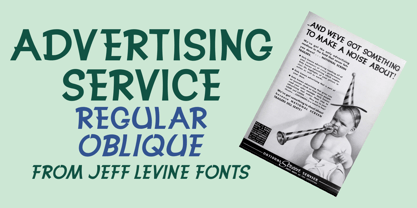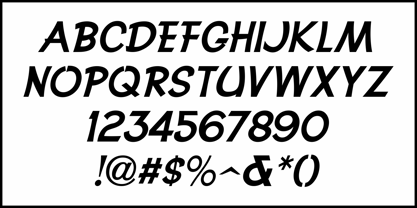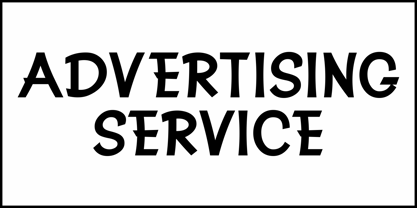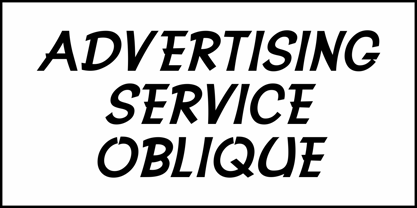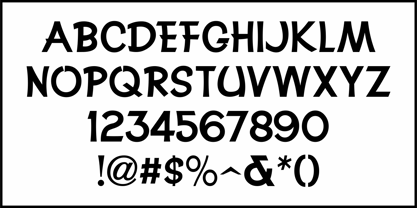
Advertising Service JNL
by Jeff Levine
The November 29,1939 issue of the theater owners' trade magazine "The Exhibitor" carried an ad for National Screen Service. Its ad featured a hand lettered headline in a casual, sans serif style reminiscent of a sign painter's poster text.
This is now available as Advertising Service JNL in both regular and oblique versions.
National Screen Service once specialized in theatrical trailers and advertising materials and advertised heavily in all of the major trade publications.
The company was started in 1920 solely as a producer and distributor of movie trailers. From the 1940s through the 1980s it had exclusive contracts with all of the major studios to handle their promotional items, but by the 1980s its business had shrunk due to changes in the film indutry. It was bought out by Technicolor in 2000.
Advertising Service JNL